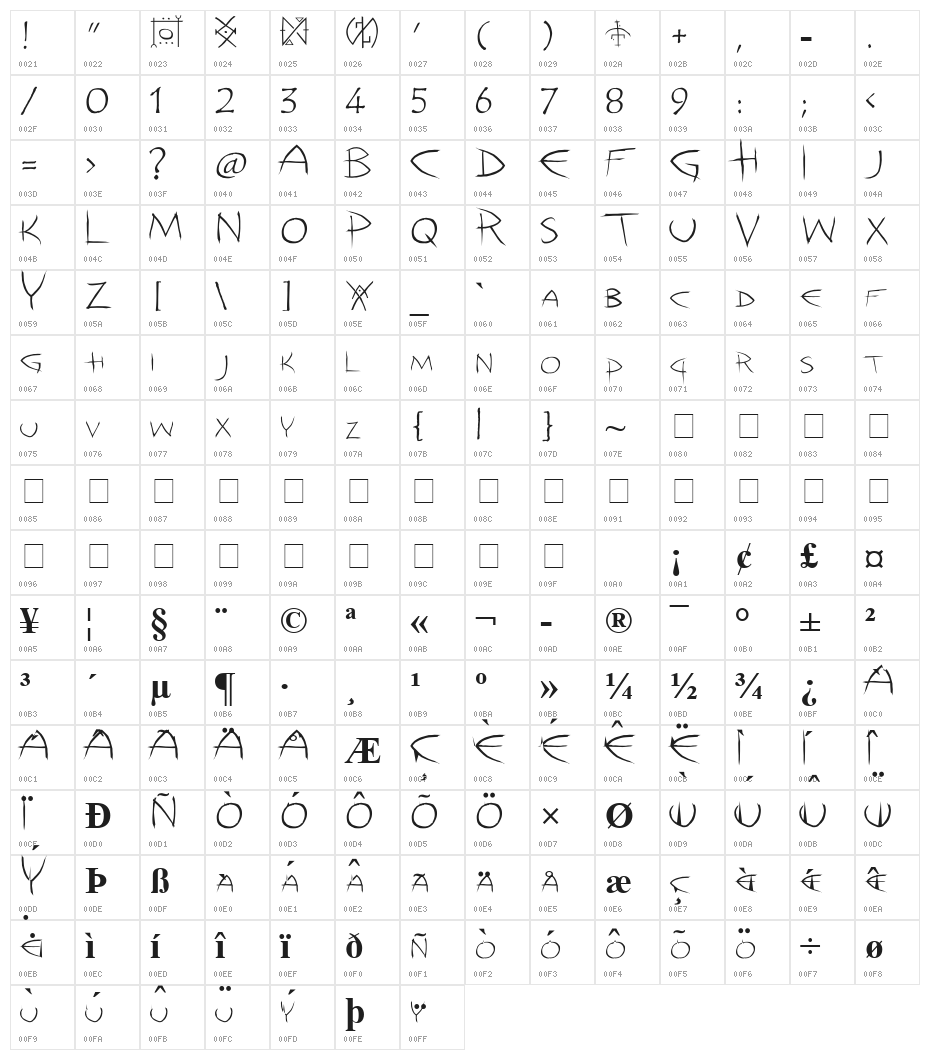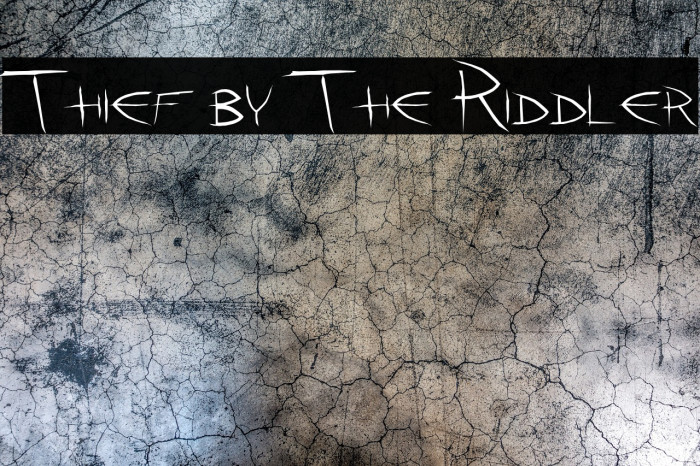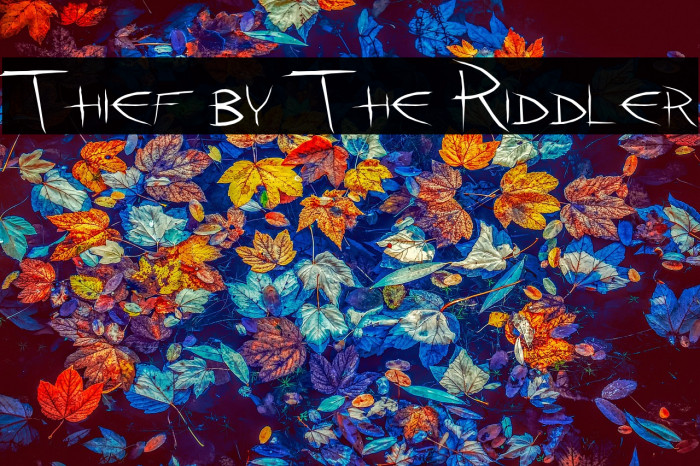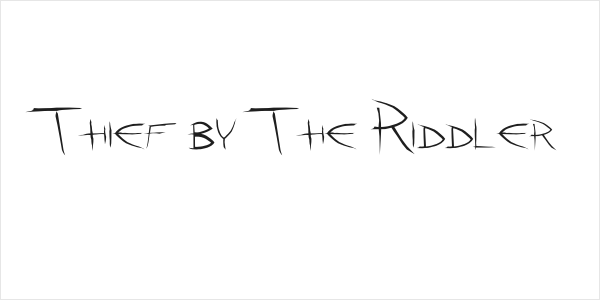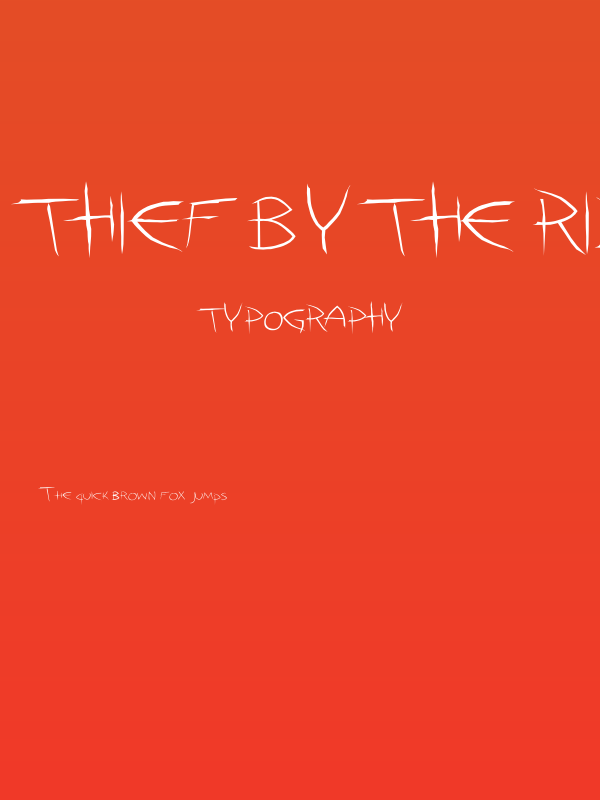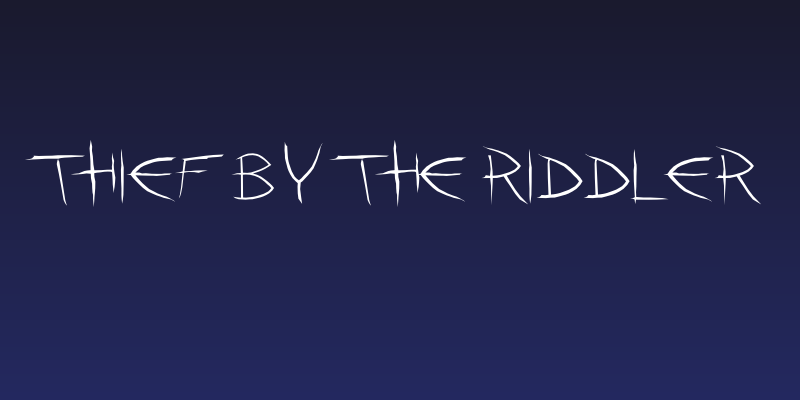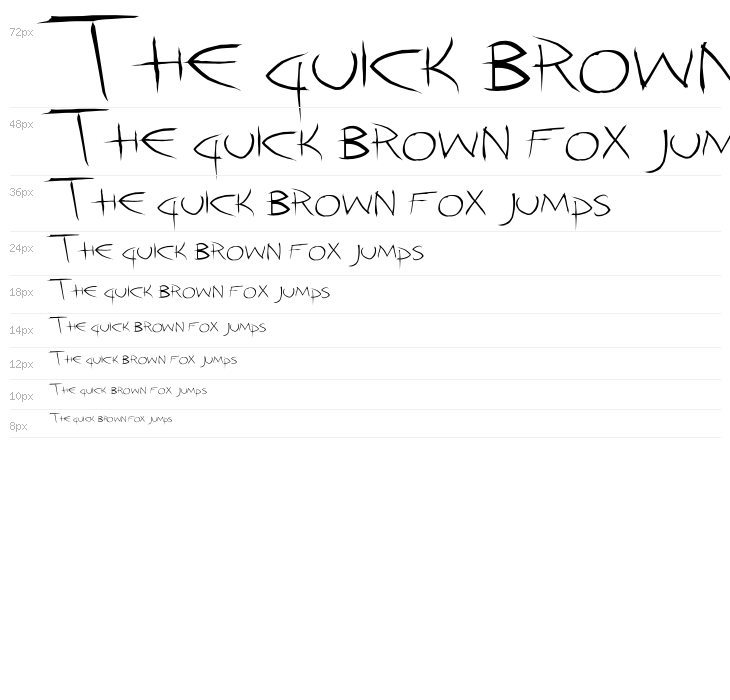
Thief by The Riddler Font
Thief by The Riddler Description
A sharp, angular, and irregular handwritten display font with thin strokes and dramatic, spiky terminals, evoking a mysterious or unsettling atmosphere. The characters are unevenly sized and spaced, with unique, cryptic symbols included among the punctuation.
| Overall Style | Decorative, Mysterious, Edgy |
| Use Case | Headlines, Posters, Logos, Themed Graphics |
| Proposed Projects | Horror movie posters, escape room branding, mystery game titles, Halloween event flyers, graphic novels, or themed party invitations. |